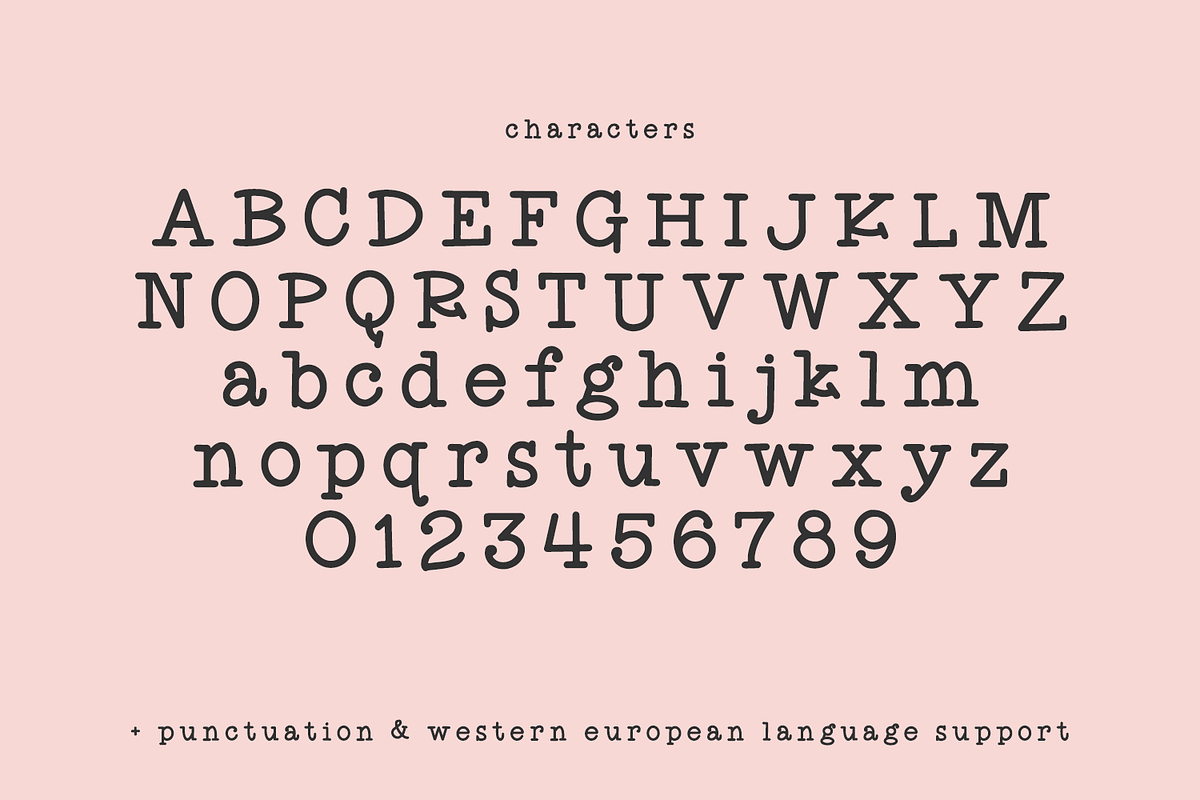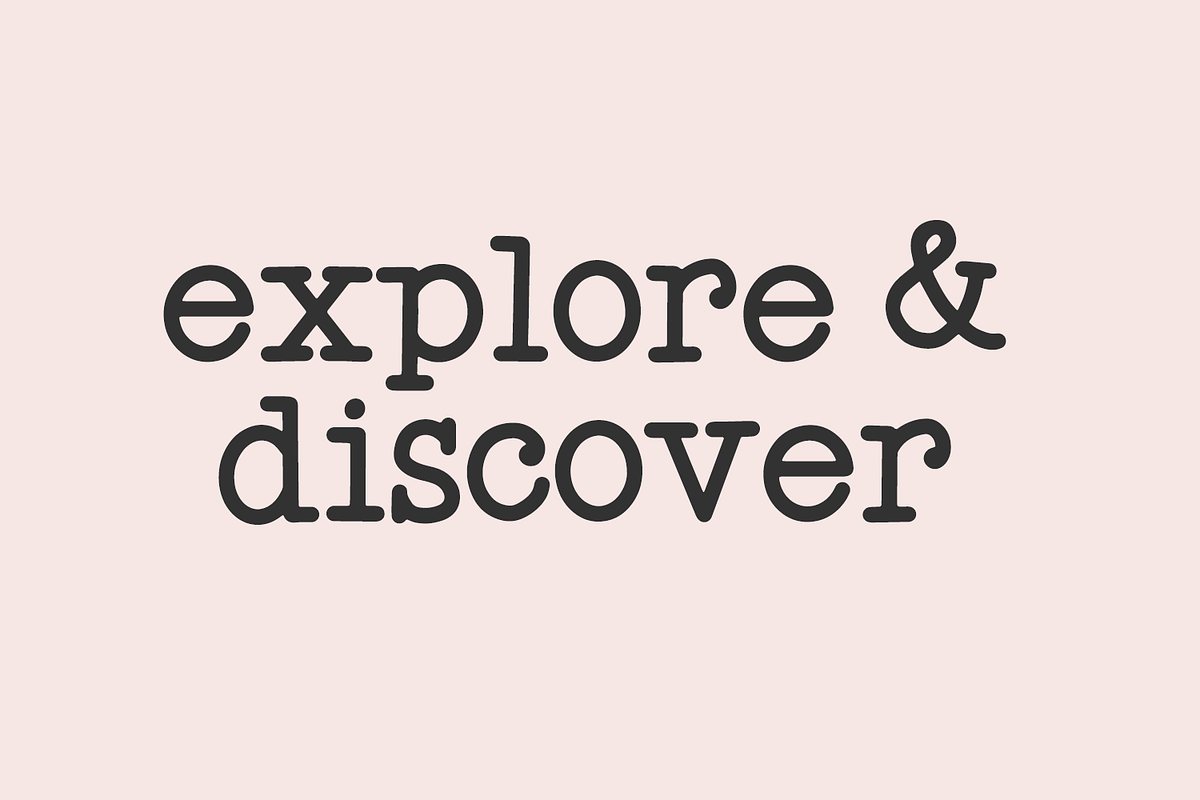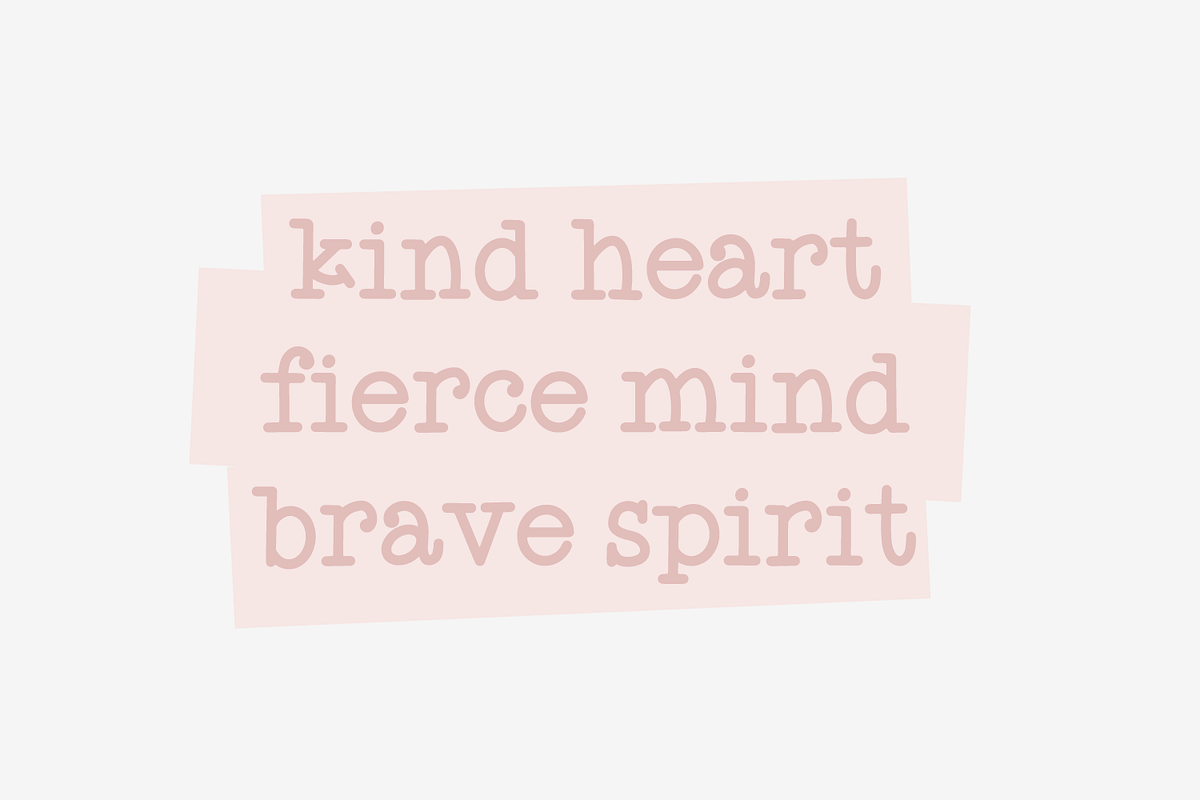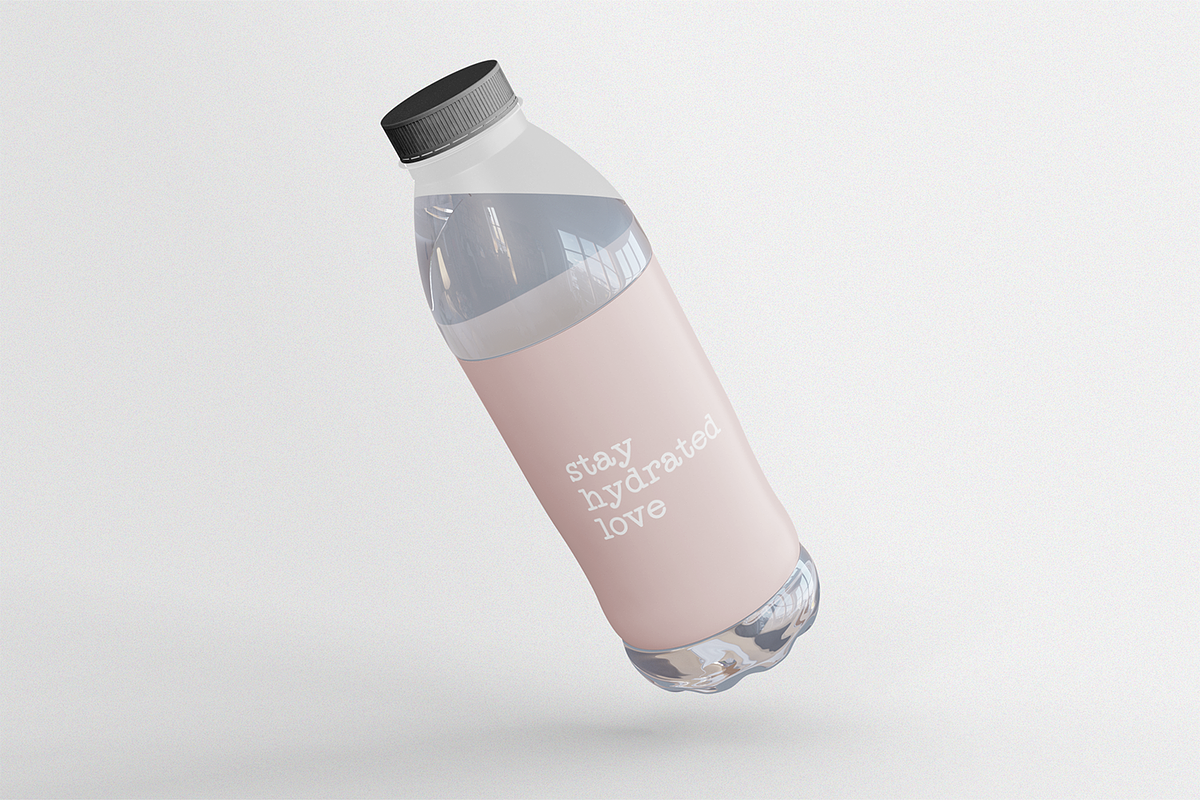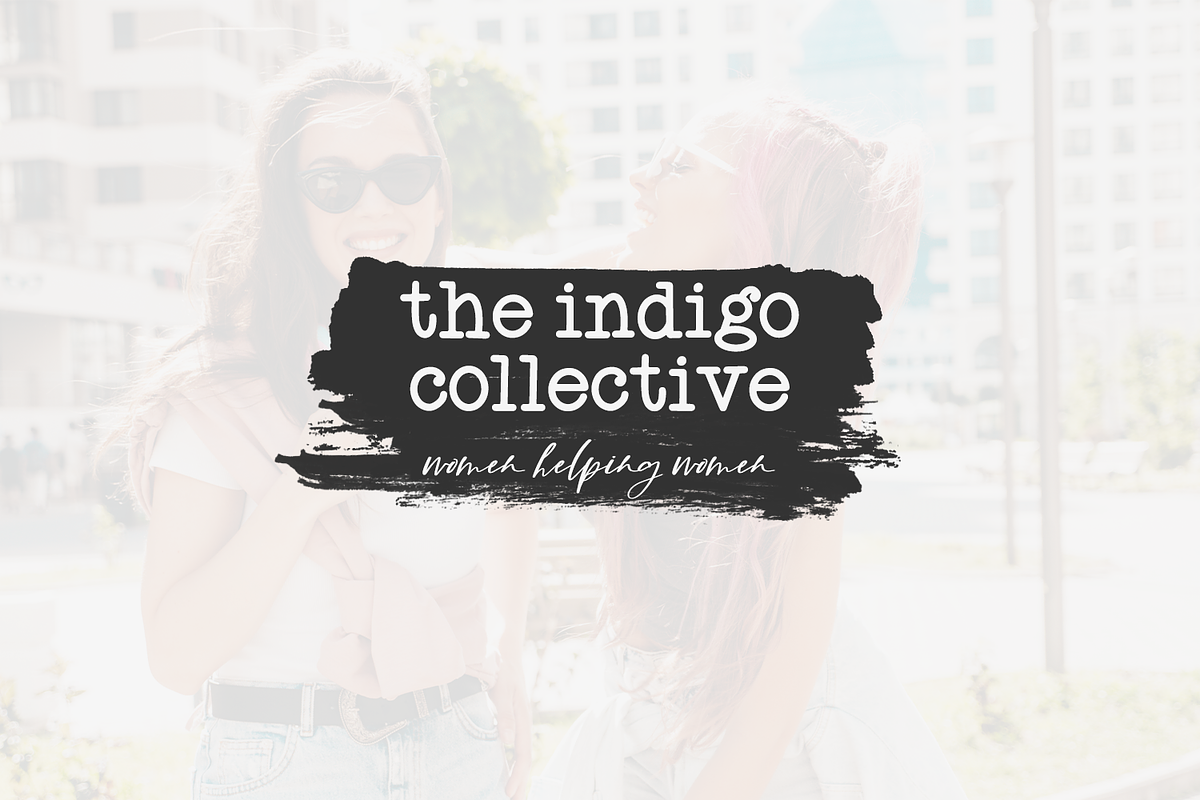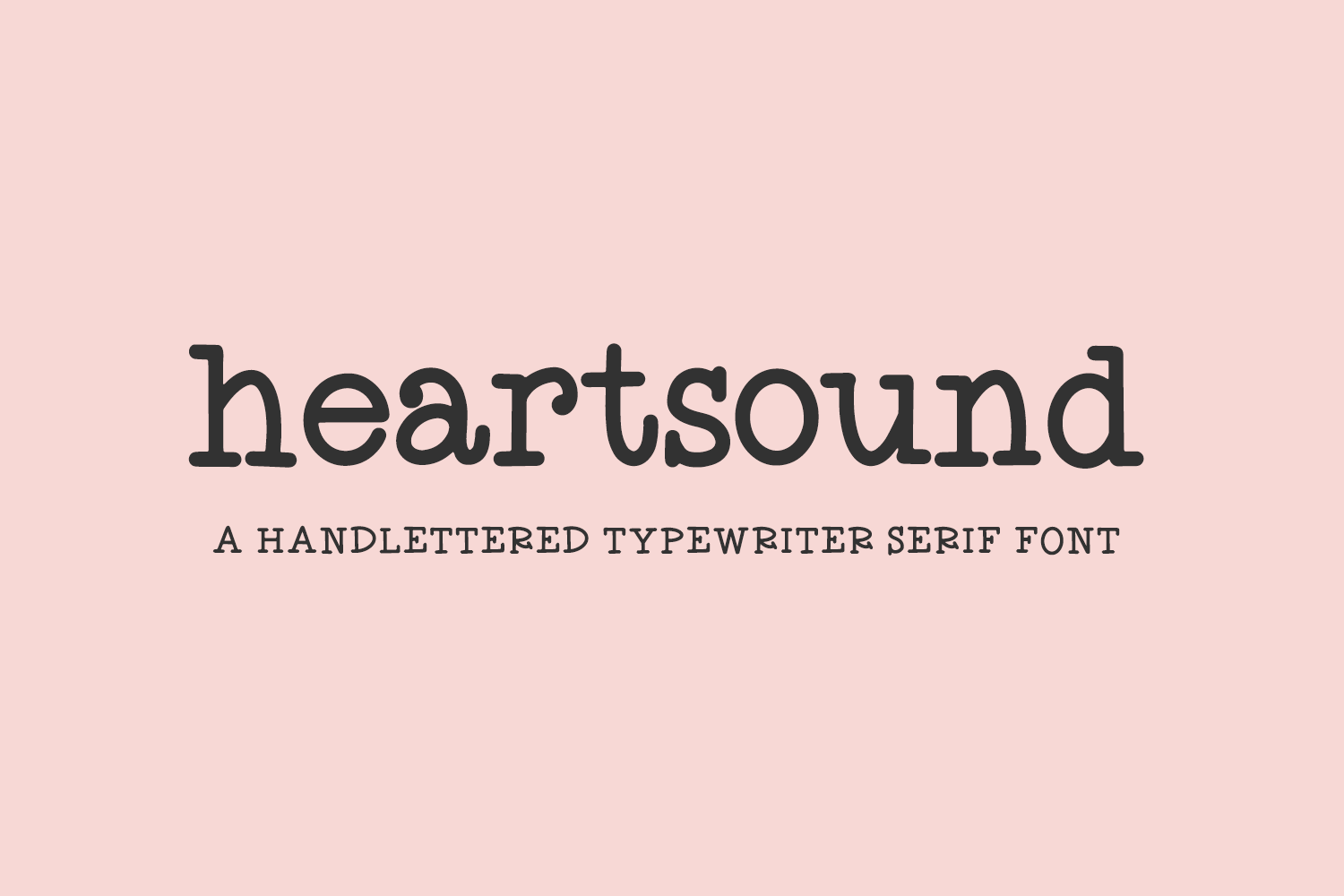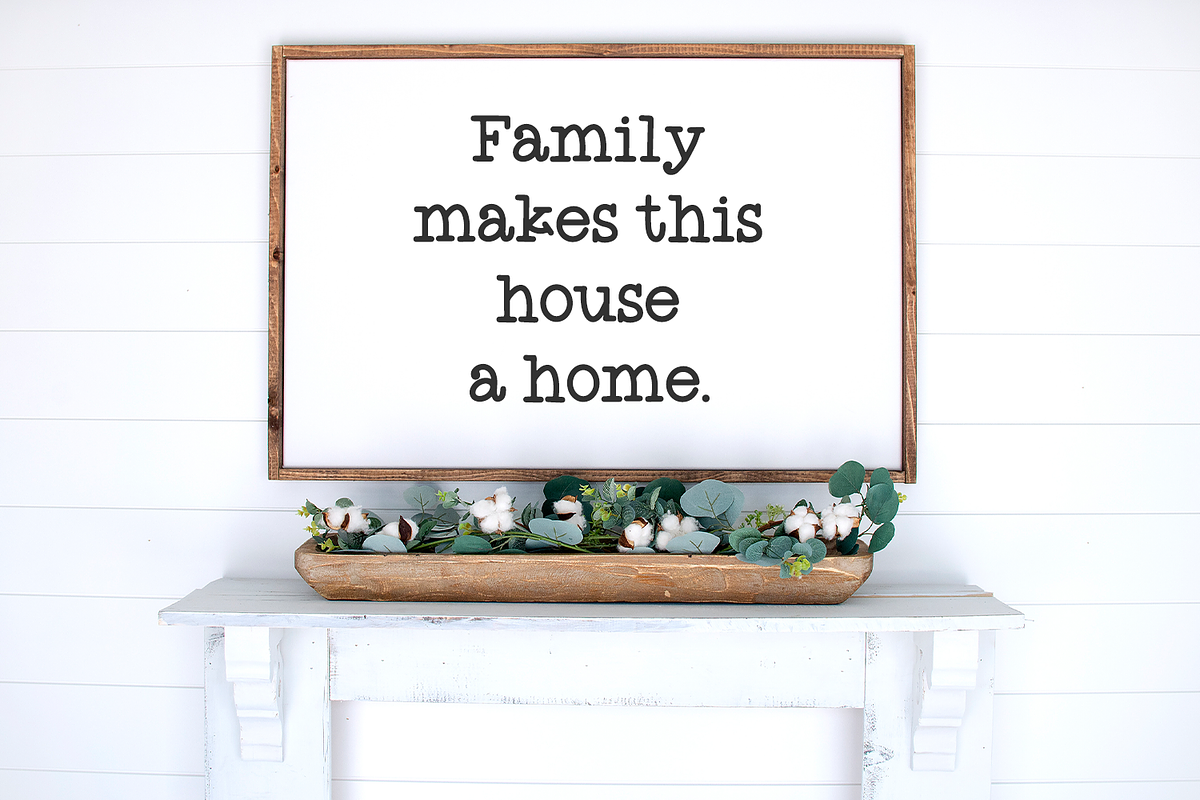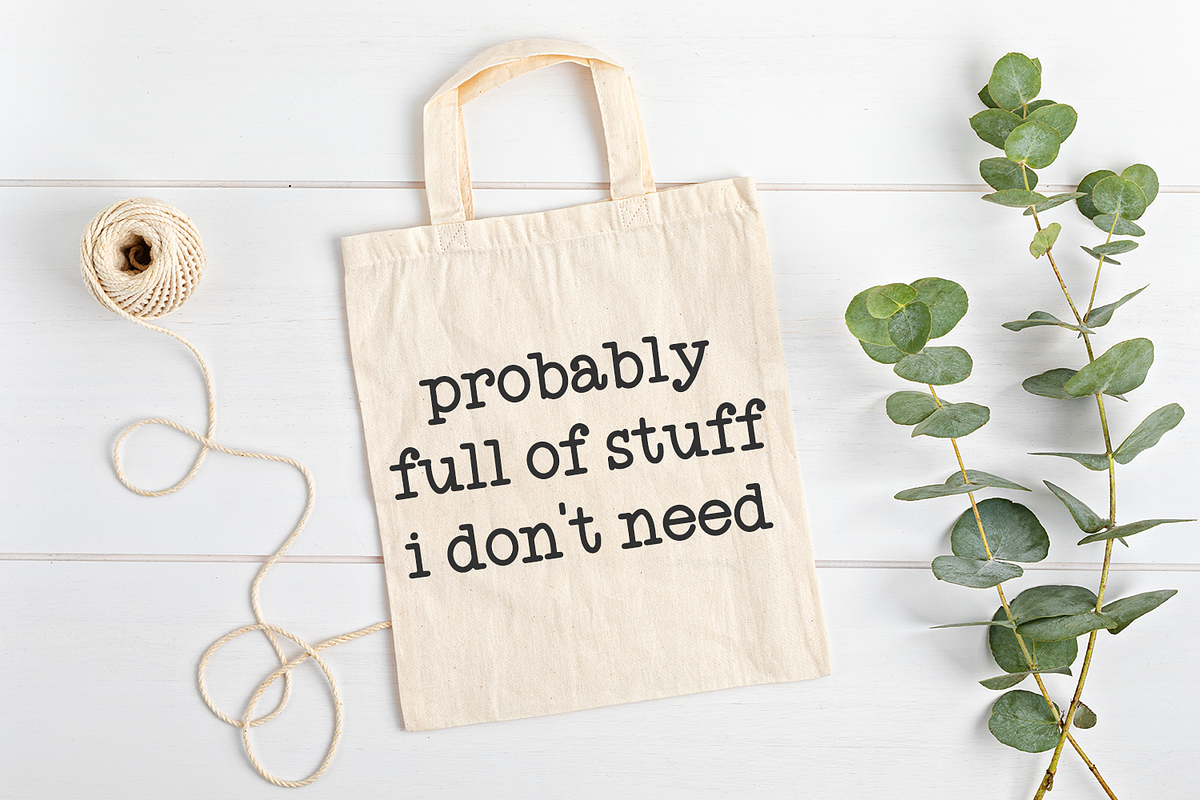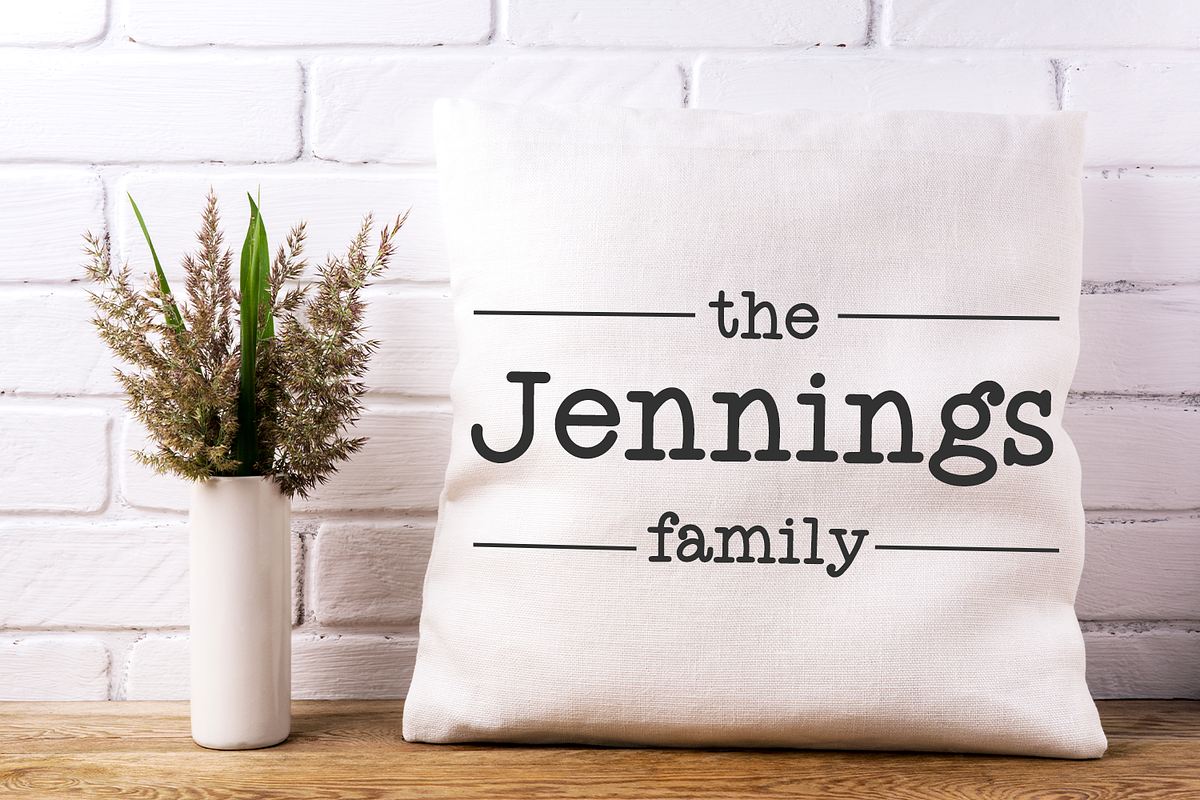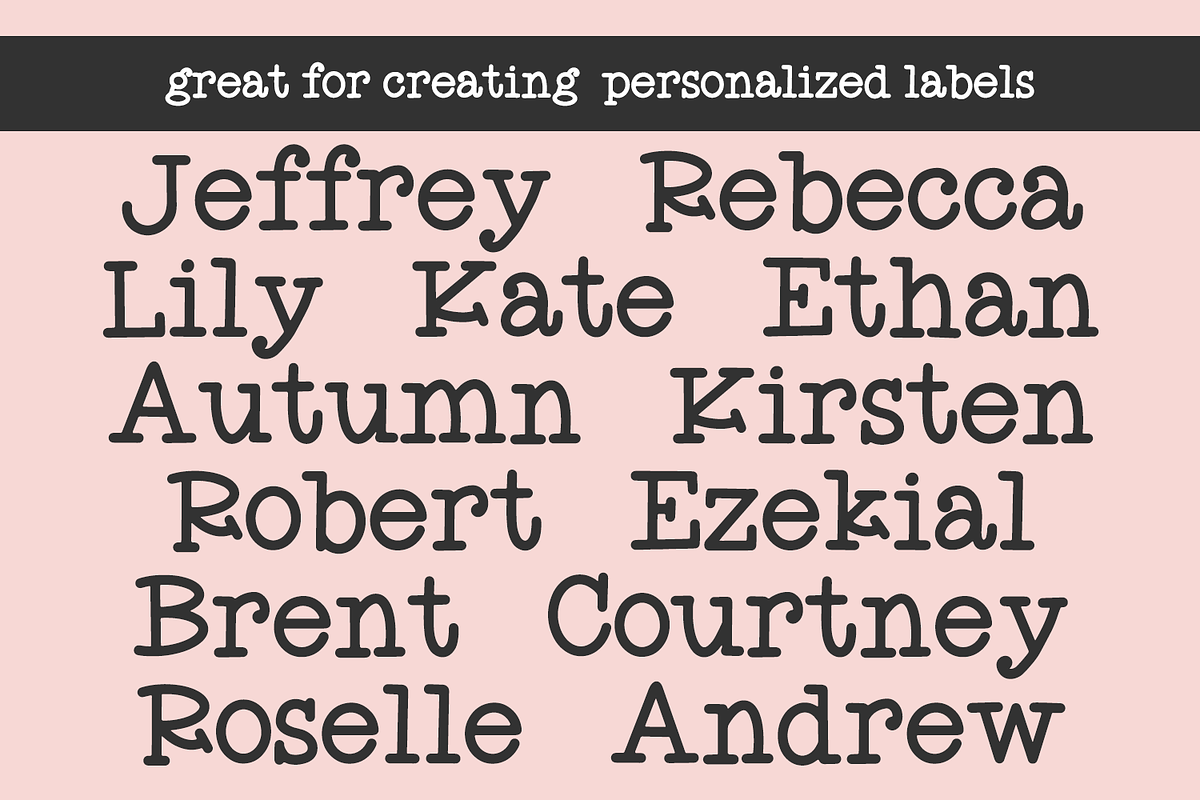
Heartsound Typewriter Serif Font
Meet Heartsound Typewriter Serif, a cute handwritten typewriter serif, perfect for your rustic and farmhouse projects.
Heartsound is best for:
- feminine, crafty projects with your Cricut or Silhouette machine, or your SVG design business
- whimsical farmhouse decor and crafts
- logos + branding
- website design + website accents, blog design
- quote graphics for social media
- feminine graphic tee shirt design & other apparel
Heartsound includes:
- full uppercase and lowercase characters
- numbers + punctuation
- Western European Language Support